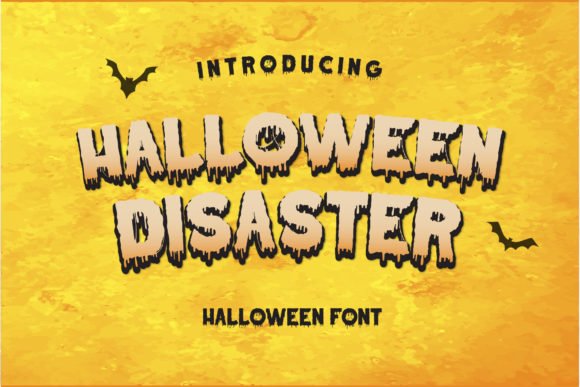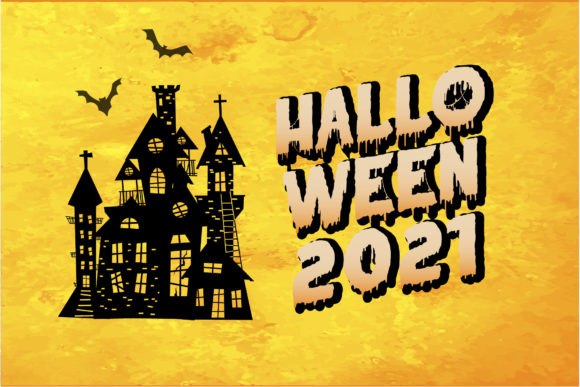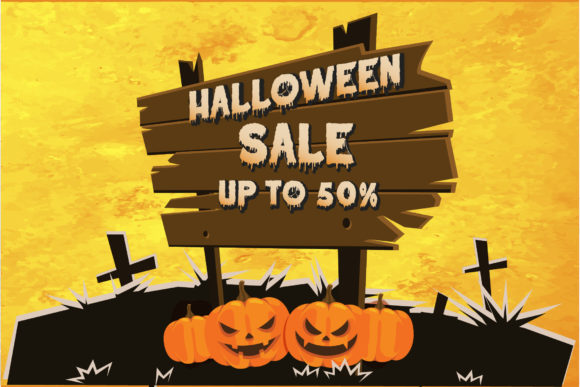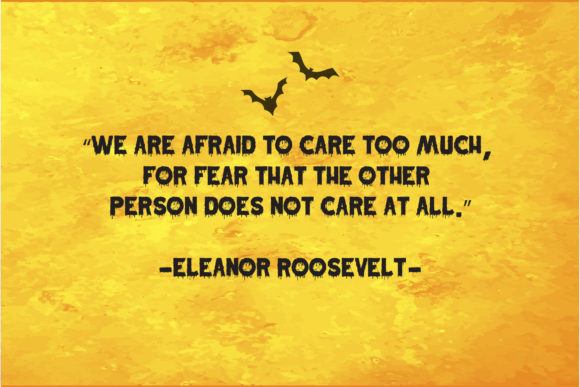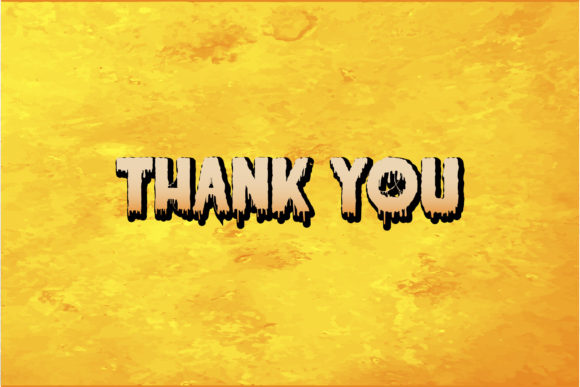
Unleash Your Creativity with the Spookiest Font of the Year
As a designer, there’s nothing quite like the thrill of bringing a concept to life. You’ve spent hours brainstorming, sketching, and refining your idea, and finally, it’s time to add the finishing touches. But what if you could take your creation to the next level? Enter the Halloween Disaster Font, a chunky lettered and spooky display font that’s sure to cast a spell on your audience.
This versatile font is more than just a novelty – it’s a game-changer. Whether you’re working on a Halloween-themed project or simply want to add a touch of eeriness to your design, the Halloween Disaster Font has got you covered. Its bold, eye-catching letters are sure to elevate any creation, making it an invaluable addition to your font library.
Halloween Disaster Font Key Features
- Font Family: Halloween Disaster Font is a unique, horror-themed font designed for creative projects.
- Unique Characteristics: Features a distressed, horror-inspired aesthetic with intricate details and eerie textures, making it ideal for Halloween-themed designs, horror movies, and spooky projects.
- Supports: Latin, Cyrillic, and Greek languages for international design applications.
Halloween Disaster Font Review
I recently had the chance to work with the “Halloween Disaster Font” and I must say, it’s a mixed bag. Here are my thoughts:
- The font’s playful and spooky vibe is perfect for Halloween-themed projects. It’s sure to add a touch of eeriness to your designs.
- The font’s bold and chunky letters are easy to read, even at smaller sizes.
- The font’s versatility allows it to work well in a variety of contexts, from party invitations to horror movie posters.
- The font’s limited character set makes it difficult to use for longer text blocks. You may need to use a secondary font to supplement the Halloween Disaster Font.
- The font’s bold style can be overwhelming when used in large quantities. Be careful not to overdo it.
- The font’s spooky vibe may not be suitable for all audiences, particularly those who prefer more family-friendly designs.
Overall, I think the Halloween Disaster Font is a fun and creative addition to any designer’s toolkit. While it may have some limitations, it’s a great choice for projects that require a spooky or playful touch.
The Halloween Disaster Font is perfect for creating spooky invitations, haunted house signs, or creepy social media graphics. You can also use it to add a haunted touch to your blog posts, articles, or website content. Experiment with different font combinations and effects to create a unique and eerie atmosphere.